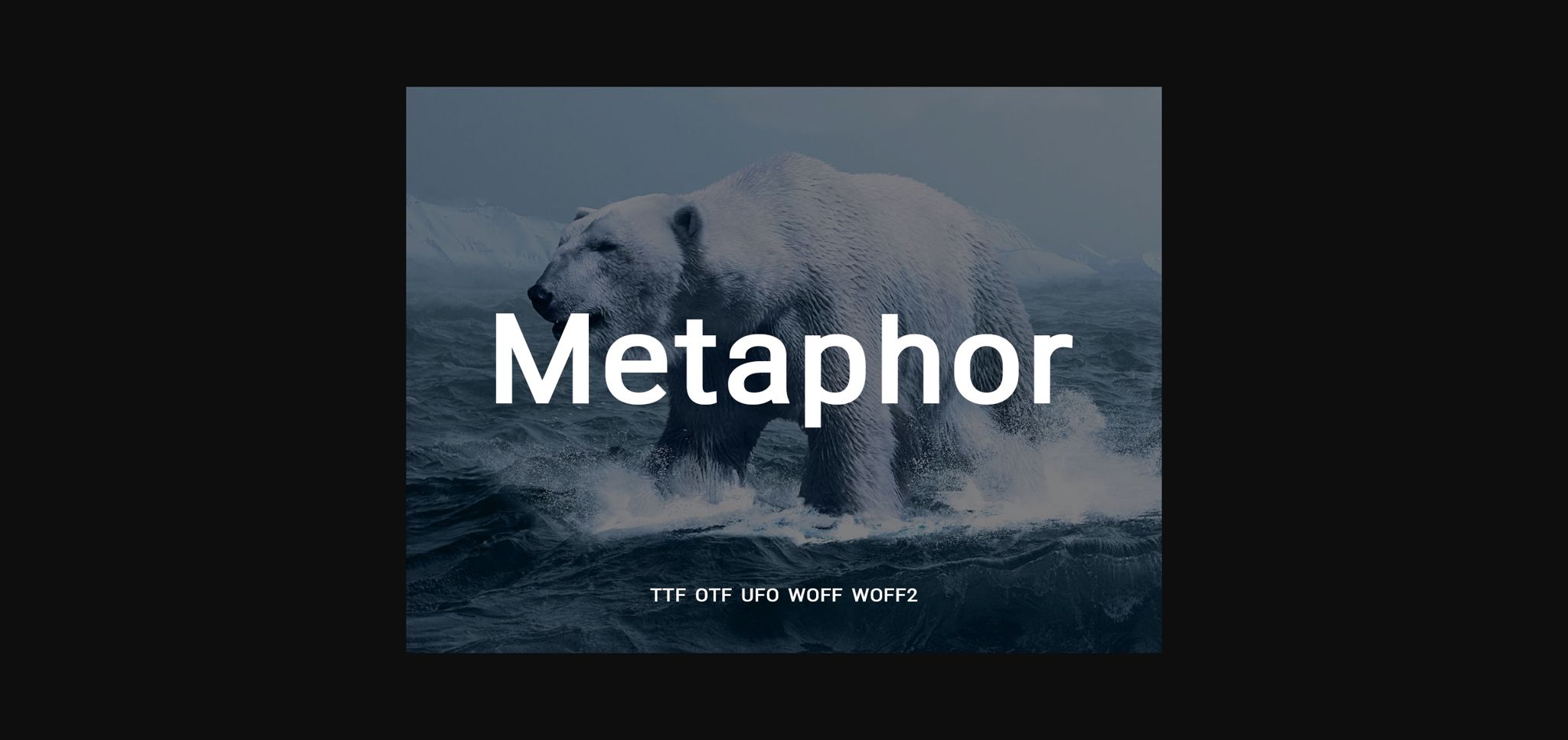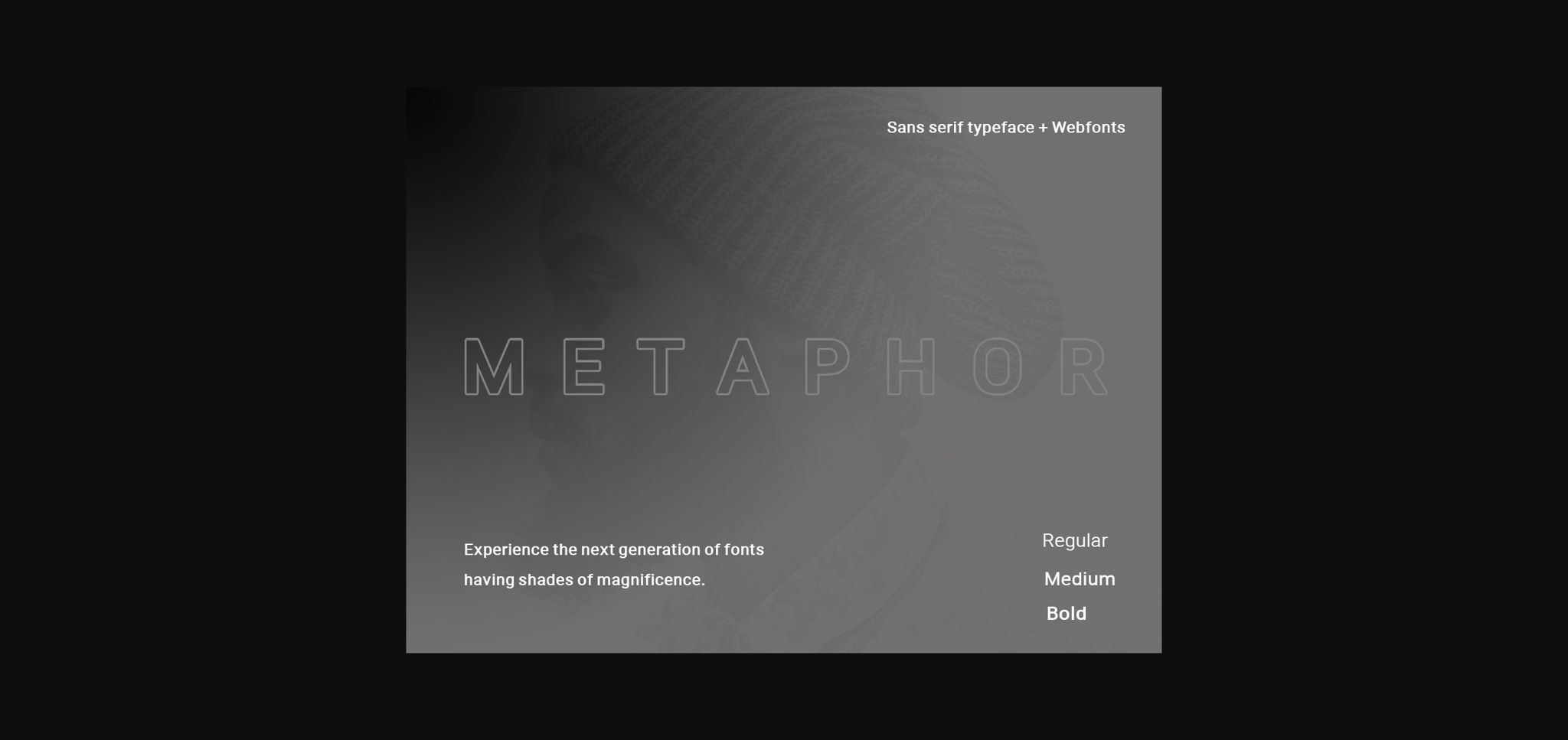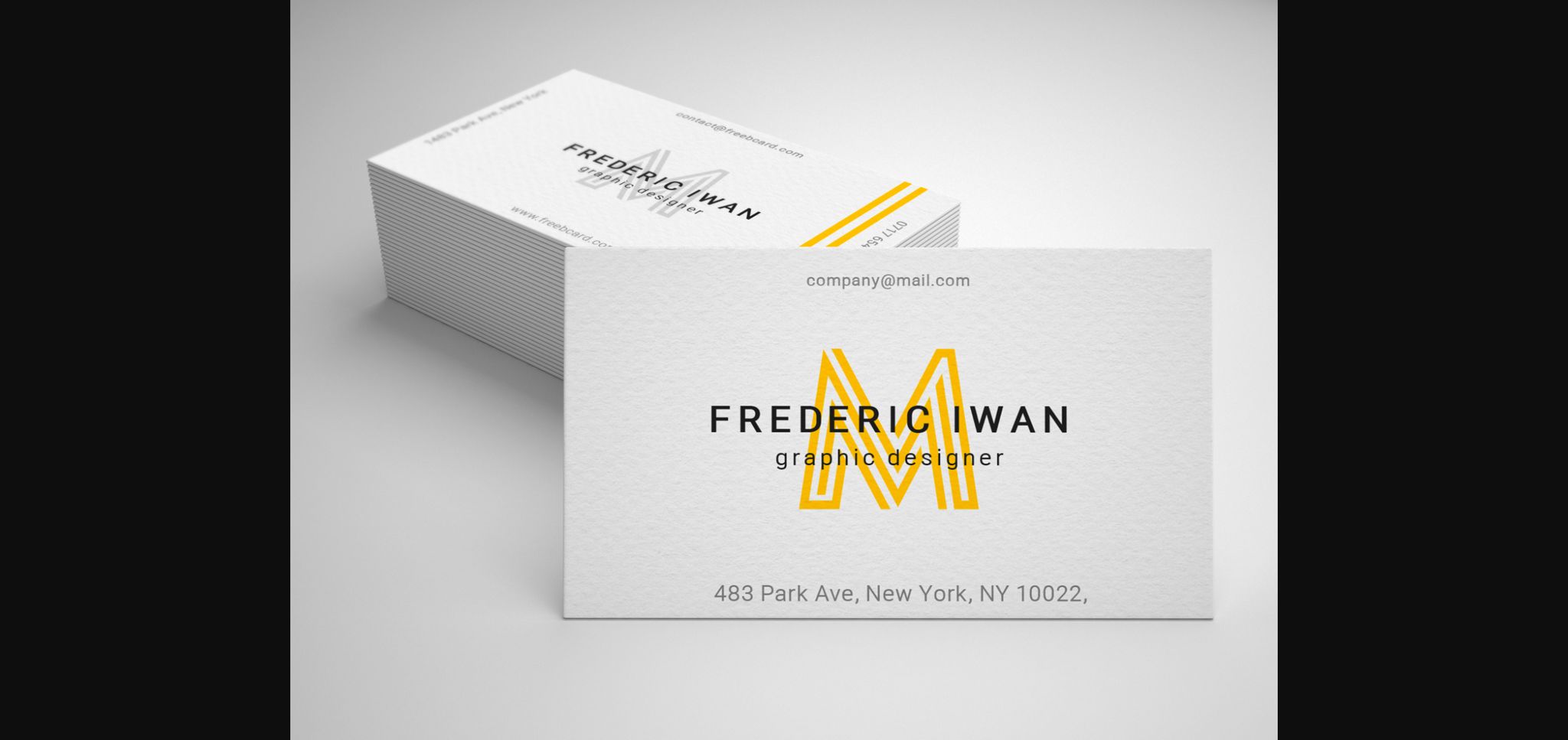
HomeSans Serif FontsMetaphor Font Sans Serif Fonts Metaphor Font FacebookXPinterestWhatsApp 1 of 5 ... Metaphor Font Poster 2... Metaphor Font Poster 3... Metaphor Font Poster 4... Metaphor Font Poster 5... About Metaphor Font Metaphor is a minimal and neat sans serif font. It can easily be matched to an incredibly large set of projects, so add it to your creative ideas and notice how it makes them stand out! DOWNLOAD NOW People also explored Quostige Font Planner Font Courageous Font Bonny Font Muinell Font Watermelon Clouds Font Myra Font Amega Font Genta Lovena Font 393 0 TagsMetaphor Font Previous articleAndreas FontNext articleBig Shine Font LEAVE A REPLY Cancel reply Comment: Please enter your comment! Name:* Please enter your name here Email:* You have entered an incorrect email address! Please enter your email address here Website: Save my name, email, and website in this browser for the next time I comment. Personal Use Free Rocketto Personal Use Free Read more about this font Cute Butterfly Personal Use Free Read more about this font Rina Personal Use Free Read more about this font Aragon Personal Use Free Read more about this font BLOG Free Fonts Risk: Why Free Fonts Can Be Dangerous for Designers Free Fonts Risk: Why Free Fonts Can Be Dangerous for Designers Using free fonts is a common practice in web and graphic design. However, the... Fonts That Capture the Spirit of New York City Best Fonts for YouTube Videos: Make Your Thumbnails Stand Out Top 10 Handwritten Fonts That Elevate Your Designs